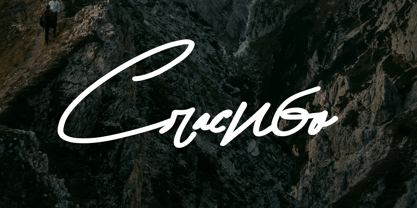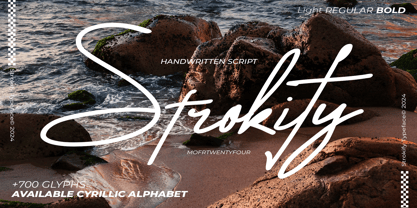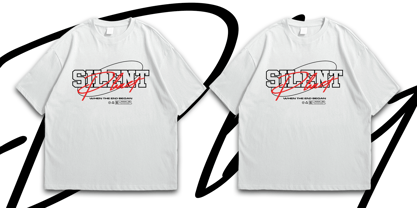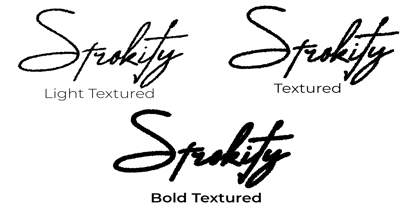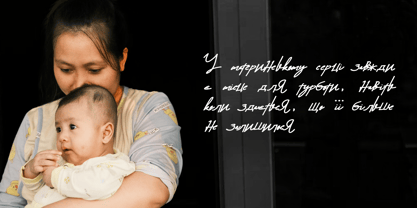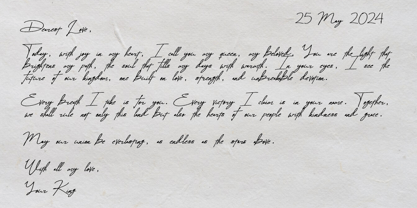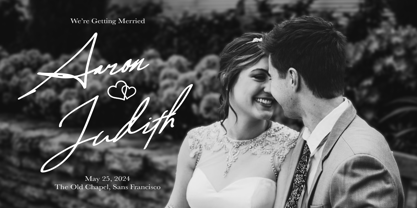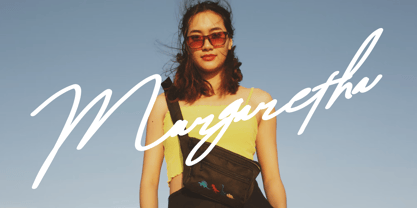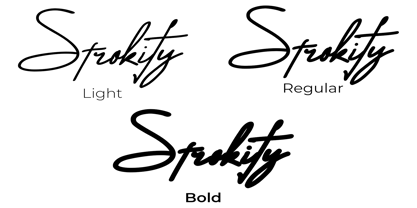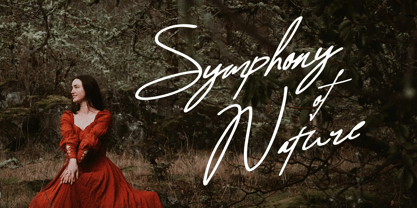
Strokify
by Mofr24
The Strokify Font Family was designed by Mohamad Farhan Ramadhan and published by Mofr24. Strokify contains 6 styles and family package options. More about this family
Strokify is a beautifully crafted handwritten script font that adds a unique touch to any design. With its cool and contemporary aesthetic, this versatile typeface supports multiple languages and offers variable weights, including Cyrillic characters. Featuring over 600 glyphs, Strokify is perfect for a range of applications, from music covers to streetwear designs and t-shirt graphics. Its artistic flair enhances typography, making it an excellent choice for creatives looking to make a bold statement. Elevate your projects with the distinctive charm of Strokify!
Designers: Mohamad Farhan Ramadhan
Foundry: Mofr24
Mofr24 Studio is a start-up design studio founded and run by Mohamad Farhan Ramadhan, based in Pangandaran, Indonesia. The studio specializes in creating exceptional fonts and illustrations for a wide range of media, including logos, advertisements, YouTube channels, packaging, apparel, banners, posters, and more. Mofr24 Studio works closely with clients to understand their brand, vision, and objectives to produce captivating and personalized designs that resonate with their target audience. The studio prides itself on its commitment to delivering top-notch quality and timely services that exceed client expectations.